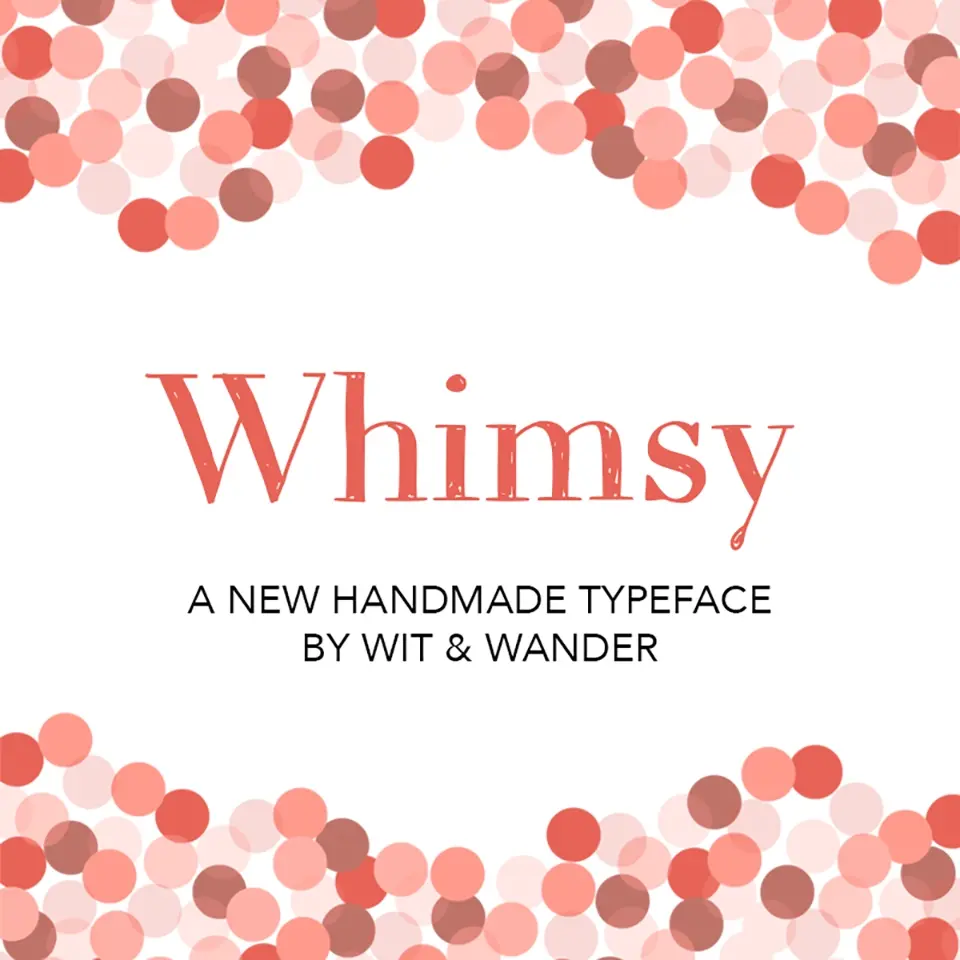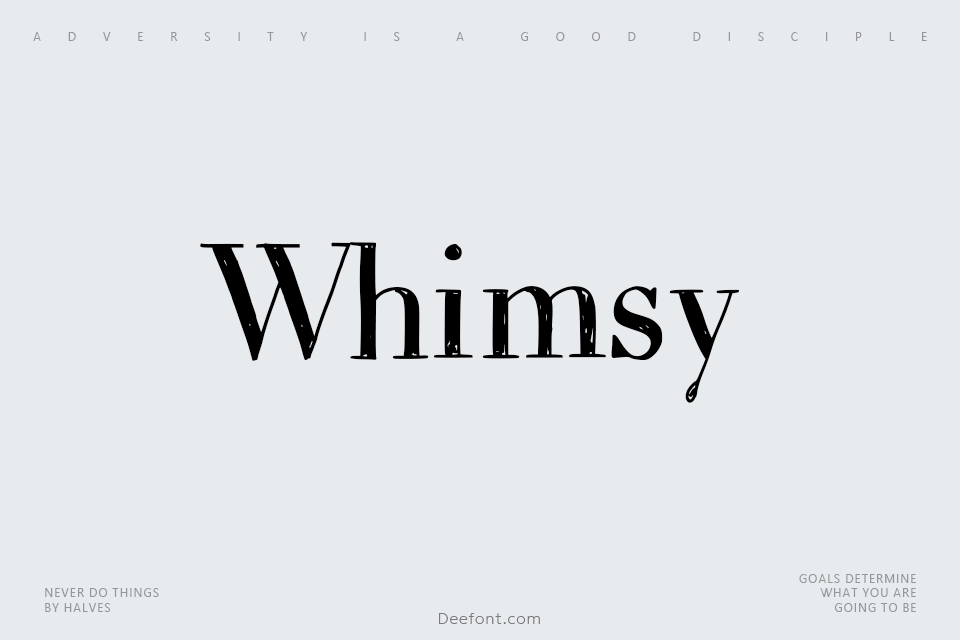
Whimsy Typeface
Whimsy is a delightful handwritten font designed by Megan Harney, characterized by playful curves, bouncy letterforms, and a whimsical personality. Perfect for invitations, greeting cards, social media graphics, and creative branding projects, this font brings joy and personality to any design. Its charming, hand-lettered style adds a touch of warmth and authenticity, making it ideal for feminine, playful, or whimsical design applications that require a friendly, approachable aesthetic.